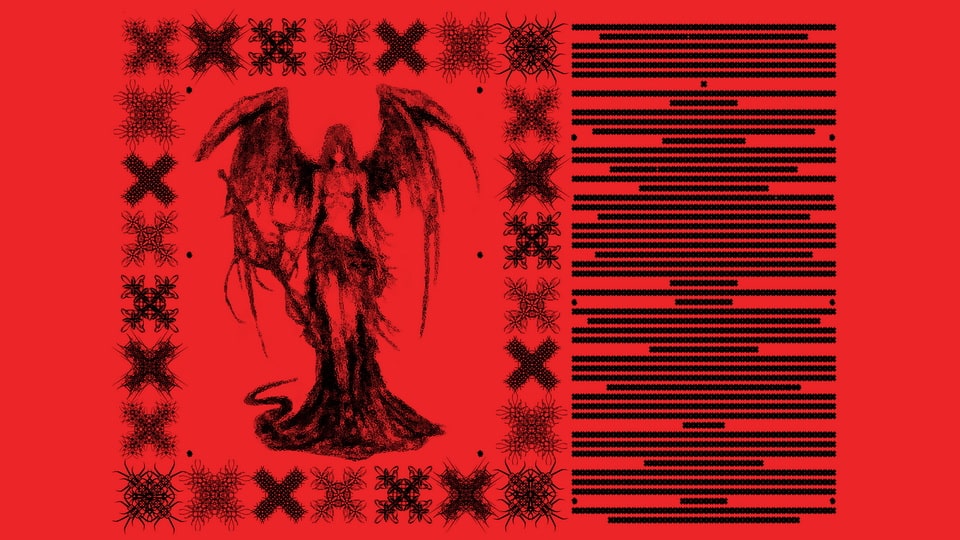
Groupie Font Family › Fontesk – Download Grátis
Download Groupie font, an art and typographic project that contains an experimental open source typeface in 7 different forms. Composed of classical Latin glyph set, Groupie is a pixel font with a simple letterform and very complicated designs, the goal being to create something very complex with 2 simple methods.
Designer: 369